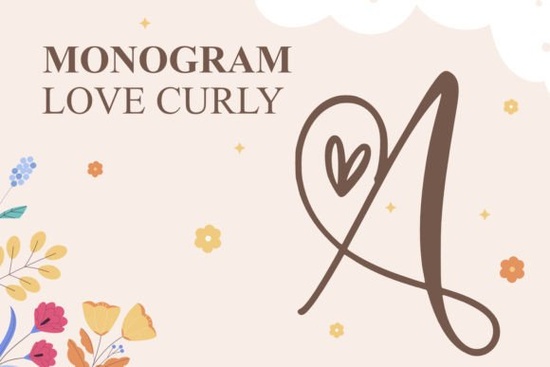
If you're looking for a decorative font that brings warmth and personality to wedding stationery, handmade cards, or small business branding Monogram Love Curly Font is a thoughtful choice. It’s not overly ornate, but it carries just enough graceful swirl and soft contrast to feel intentional and hand-crafted. Designed with love in mind not just as a theme, but as a feeling it works especially well when you want your text to feel personal, not polished.
When does Monogram Love Curly Font work best?
This font shines where emotion matters more than efficiency. Think handwritten-style monograms on bridal shower banners, delicate script lines inside thank-you notes, or subtle accents in boutique packaging. It’s not meant for long paragraphs or body text but it excels in short, meaningful phrases: “Mr. & Mrs.”, “Est. 2024”, “With Love”, or even a single initial paired with floral elements.
Because of its gentle curves and balanced spacing, it pairs naturally with minimalist layouts and vintage-inspired designs. Crafters using Cricut or Silhouette machines often choose it for layered vinyl projects especially when cutting from thin materials like foil paper or heat-transfer vinyl. Print-on-demand sellers also find it useful for mugs, tote bags, and framed art where a soft, romantic tone fits the audience.
How does it compare to other decorative fonts?
Not all curly or script fonts feel the same. Some lean too formal (like classic calligraphy), others too playful (think bubble letters or candy-themed styles). Monogram Love Curly sits comfortably in the middle friendly but refined. If you’ve used Summer Beach Font, you’ll notice how Monogram Love Curly trades coastal energy for quiet intimacy. It’s less about sunshine and more about sincerity.
Compared to Cotton Candy Font, it avoids sugary exaggeration no extreme loops or bouncy baselines. And unlike Mama Flowers Font, which blends script with botanical motifs, Monogram Love Curly keeps the focus purely on letterform, making it easier to layer with illustrations or photos without visual competition.
The font includes standard Latin characters (A–Z, a–z), numbers, and common punctuation. It doesn’t support extended language sets or multilingual symbols, so it’s best suited for English-language projects or bilingual designs where only basic words appear in this style.
Where do crafters actually use it?
Real-world uses include:
- Wedding invitations and place cards (paired with a clean sans-serif for contrast)
- Handmade greeting cards especially for anniversaries, engagements, or baby showers
- Small-batch product labels for candles, bath salts, or herbal teas
- Digital stickers or printable wall art sold on Etsy or Creative Market
- Embroidery patterns where simplified script translates well to stitch count
One small business owner told us she used Monogram Love Curly Font for her line of linen napkins printing initials in soft grey ink over natural fabric. The result felt heirloom-quality without needing complex production methods.
Try pairing it with a neutral, low-contrast sans-serif like Montserrat Light or Lato Regular. Avoid other decorative fonts in the same layout two scripts can compete instead of complement. Also, test readability at smaller sizes: below 24pt, some details may blur depending on your printing method or screen resolution.
If you're new to working with script fonts, start by typing full words first don’t rely on auto-kerning alone. Adjust letter spacing manually in your design app to keep rhythm smooth, especially around tight curves like “o” and “e”. And remember: this font isn’t built for headlines that scream it’s made for moments that whisper.